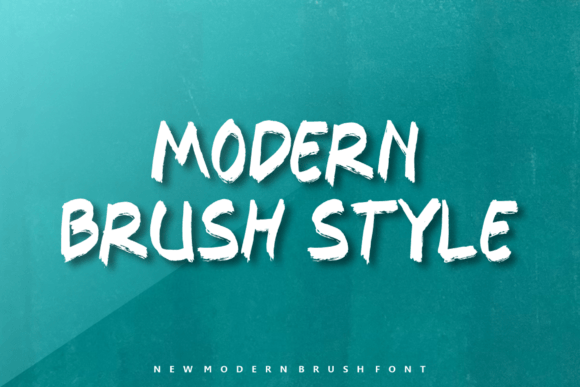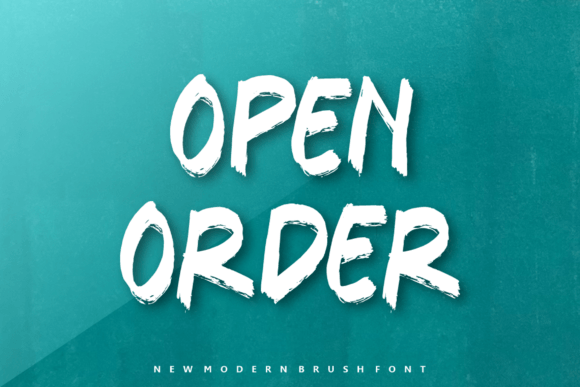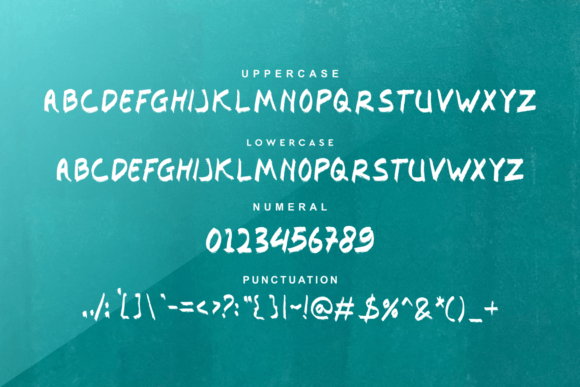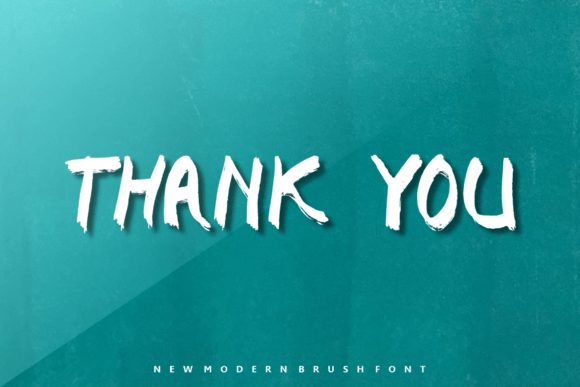
Introducing Brush Destorsi Font: The Ultimate Display Font for Bold Branding
In the world of typography, a font can make or break a brand’s identity. A well-crafted font can elevate a brand’s visual appeal, convey its personality, and leave a lasting impression on its audience. If you’re a designer, craftsperson, or entrepreneur looking for a font that can help you create stunning brand assets, look no further than Brush Destorsi Font. In this article, we’ll dive into the world of Brush Destorsi, exploring its features, benefits, and uses.
What is Brush Destorsi Font?
Brush Destorsi is a bold and authentic display font designed for use in a wide range of branding projects. Its unique, hand-crafted aesthetic makes it perfect for creating eye-catching logos, t-shirt prints, and other marketing materials. With its robust and confident appearance, Brush Destorsi is sure to make a statement in any context.
Key Features of Brush Destorsi Font
- Bold and Authentic: Brush Destorsi boasts a bold and authentic look that’s perfect for creating striking brand assets.
- Display Font: Designed specifically for display purposes, Brush Destorsi is ideal for use in headlines, titles, and other prominent text elements.
- Hand-Crafted Aesthetic: With its unique, hand-crafted look, Brush Destorsi adds a touch of personality and character to any design.
- Versatile: Brush Destorsi can be used in a wide range of contexts, from logos and t-shirt prints to posters, flyers, and more.
Benefits of Using Brush Destorsi Font
- Stand Out from the Crowd: With its bold and authentic look, Brush Destorsi helps your brand stand out in a crowded market.
- Convey Confidence and Personality: Brush Destorsi’s robust and confident appearance conveys a sense of personality and character, helping to build a strong brand identity.
- Easily Readable: Despite its bold aesthetic, Brush Destorsi is surprisingly easy to read, making it perfect for use in a wide range of contexts.
Use Cases for Brush Destorsi Font
- Logo Design: Create a bold and memorable logo that showcases your brand’s personality.
- T-Shirt Printing: Design eye-catching t-shirt prints that make a statement.
- Posters and Flyers: Create striking posters and flyers that grab attention.
- Social Media Graphics: Use Brush Destorsi to create bold and engaging social media graphics.
Tips for Using Brush Destorsi Font
- Use it Boldly: Brush Destorsi is designed to make a statement, so don’t be afraid to use it boldly.
- Experiment with Colors: Try pairing Brush Destorsi with different colors to create a unique look.
- Mix and Match: Combine Brush Destorsi with other fonts to create a striking contrast.
In conclusion, Brush Destorsi Font is a versatile and powerful display font that’s perfect for creating bold and eye-catching brand assets. With its unique, hand-crafted aesthetic and robust appearance, Brush Destorsi is sure to make a statement in any context. Whether you’re a designer, craftsperson, or entrepreneur, Brush Destorsi is a must-have font for any branding project.